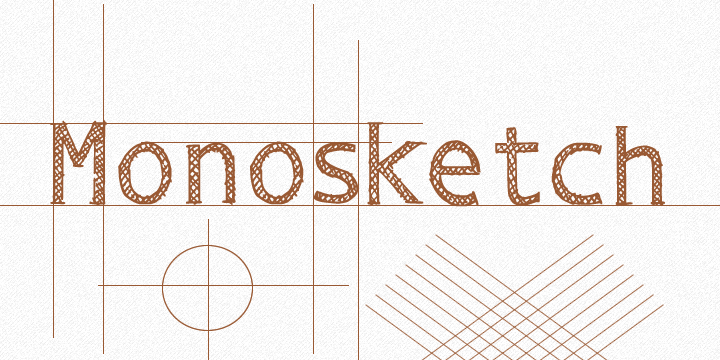
The Monosketch Font is perfect for various design applications including art studio branding, sketch artist portfolios, creative agency logos, design school materials, architectural drafting graphics, artist workshop signage, creative coding projects, and handmade craft packaging. This artistic typeface works exceptionally well for creative professionals and projects requiring authentic hand-drawn character with artistic authenticity.
What makes Monosketch Font exciting is its hand-drawn and artistic character that instantly captures the authentic spirit of creative sketching and artistic expression. The font features sketchy letterforms with organic imperfections and artistic aesthetics that evoke feelings of creativity, spontaneity, and authentic craftsmanship. Its artistic styling and handmade appearance make it perfect for brands that want to showcase creative authenticity and connect with audiences who appreciate genuine artistic expression and handcrafted quality.
The Monosketch Font family includes multiple weights and styles, offering designers flexibility for diverse artistic applications. The family typically consists of regular, bold, light, and rough variations, along with sketch-inspired decorative elements and artistic ornaments, providing comprehensive coverage for projects that need both functionality and creative charm across different artistic contexts.
Whether you're working on creative services, artistic education, or handmade product marketing, Monosketch Font Free Download delivers the authentic quality and visual creativity that modern artistic designers seek. The font's sketch-inspired design combined with its excellent readability makes it an essential tool for creating compelling visual communications that celebrate artistic expression and bring the genuine spirit of hand-drawn creativity to life.